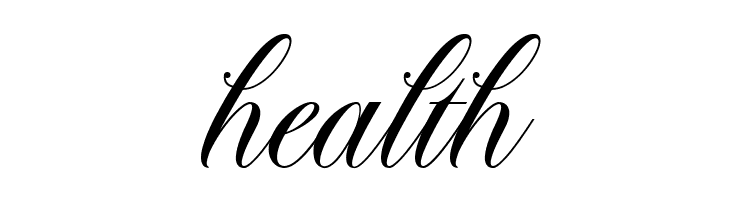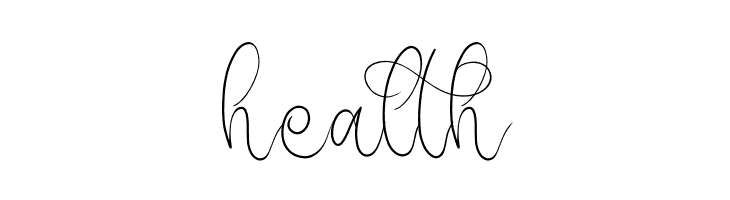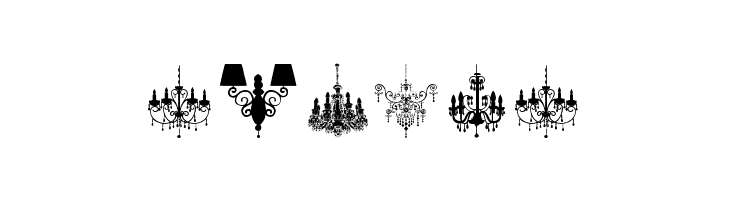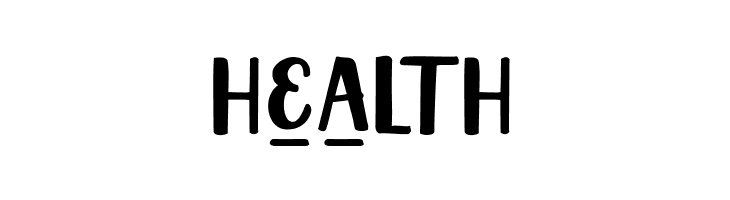
A classic, elegant cursive font with a calligraphic style.
An elegant cursive font with flowing, calligraphic strokes.
A bold, playful handwritten font with a casual and dynamic style.
An elegant script font with flowing, decorative swashes and loops.
A bold, wavy, hand-drawn style font with an organic, playful appearance.
A set of chandelier vector icons and silhouettes.
An elegant, cursive script font with a flowing, handwritten style.
An elegant script font with flowing, high-contrast strokes and ornate flourishes.
Elegant script font with intricate swirls.